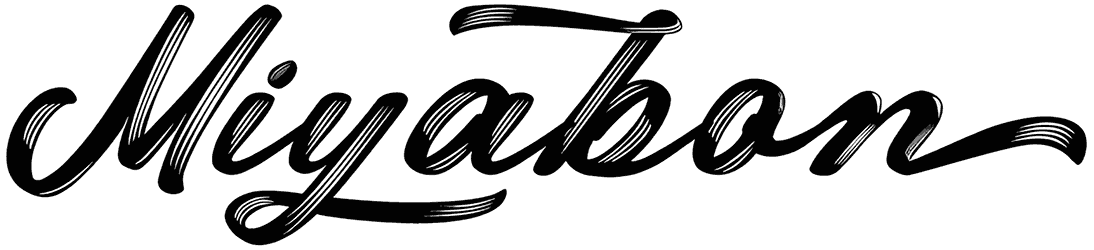
Miyabon Font
With a brush patterned outward, embellish your next design and make it stylish and handsome. Miyabon, as a handwritten font, has unique bold letters and could throw a classic but modern vibe to contexts. For a lot of projects, for instance posters, cosmetics productions, fashion ads, or similar things, this calligraphy font can be a brilliant choice and cause them to shine.